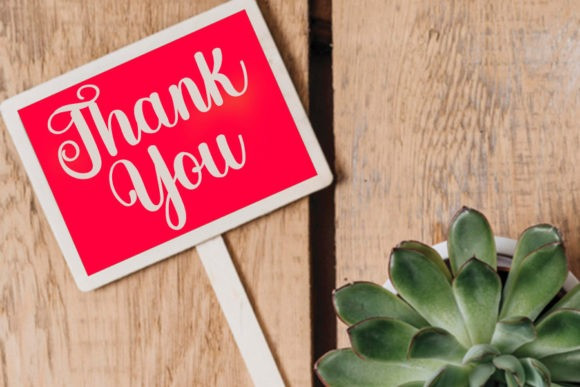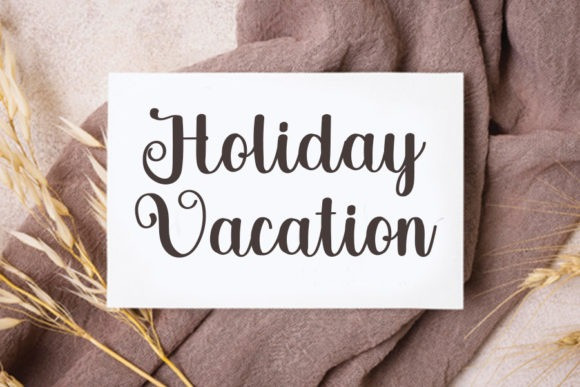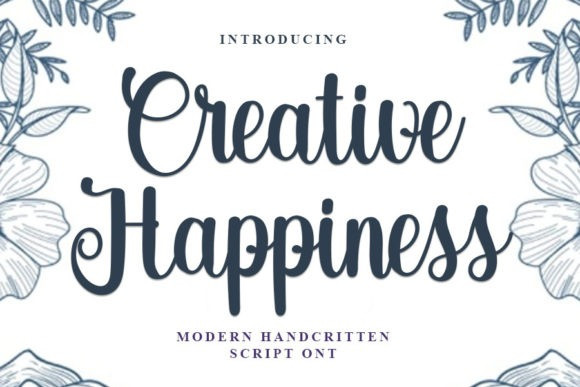
Creative Happiness Font
Creative Happiness Script Font is a lovely and delicate script font that exudes elegance and class. This font was particularly crafted for those who need a beautiful and refreshing look to their designs.